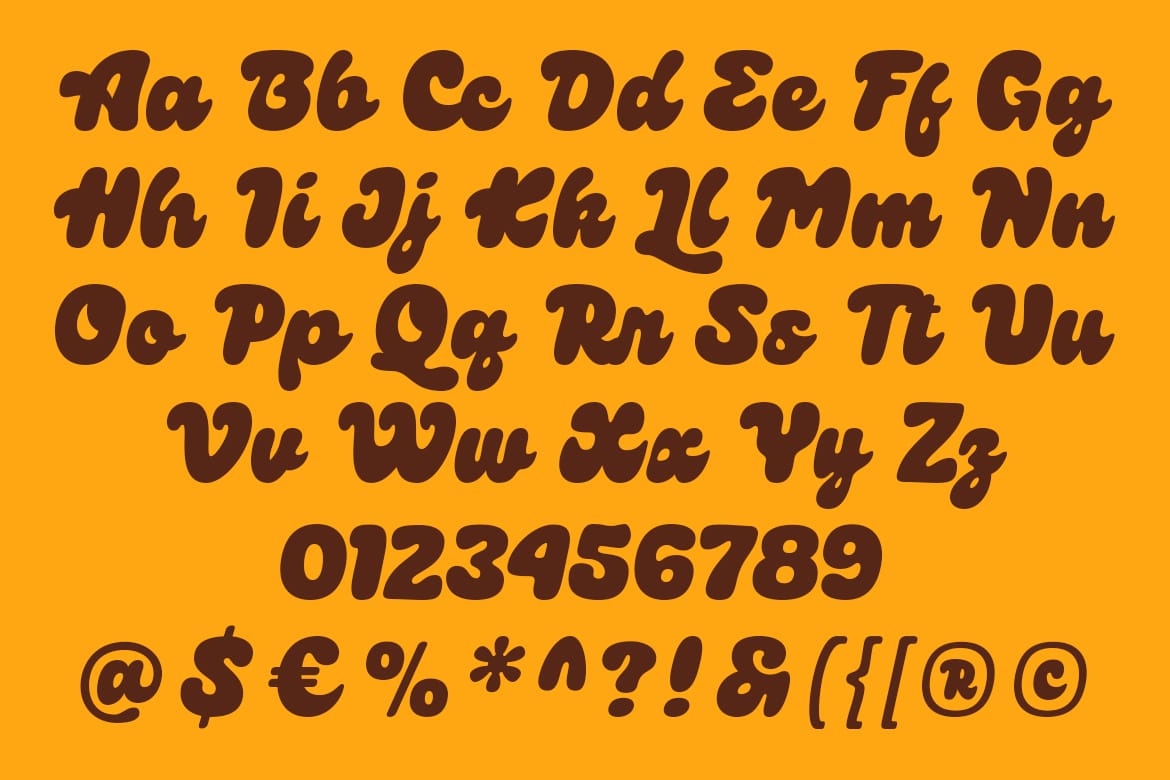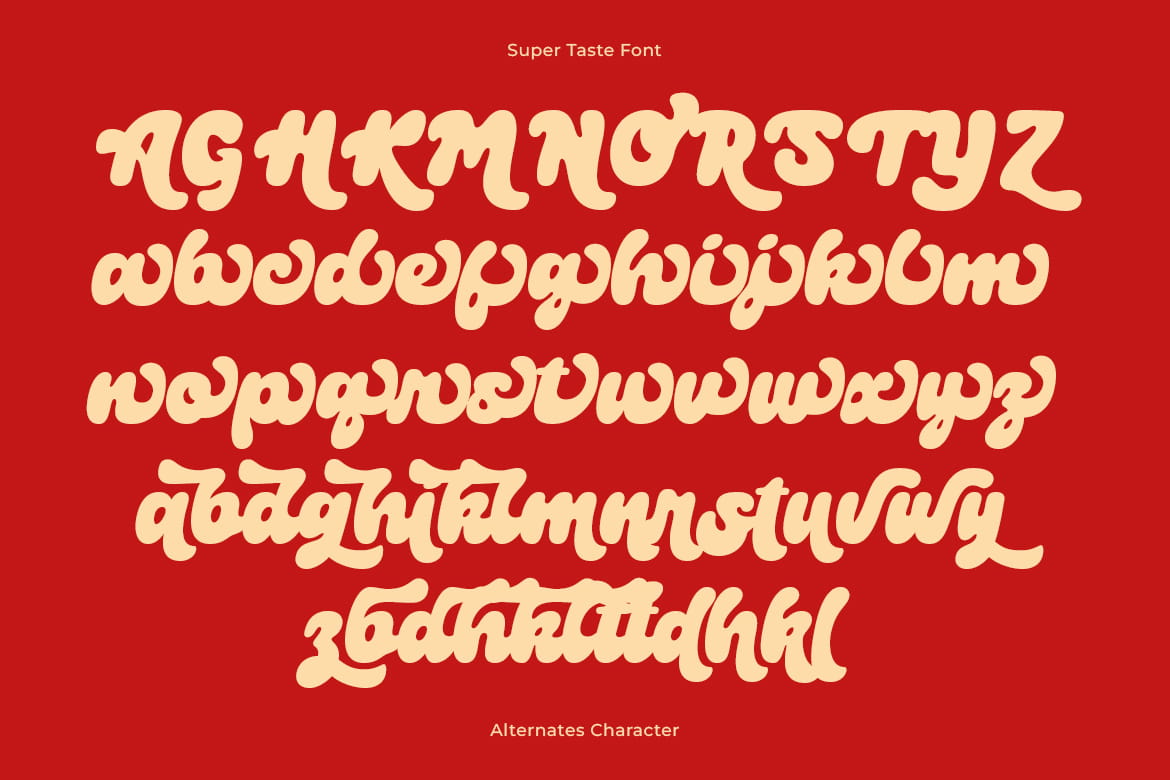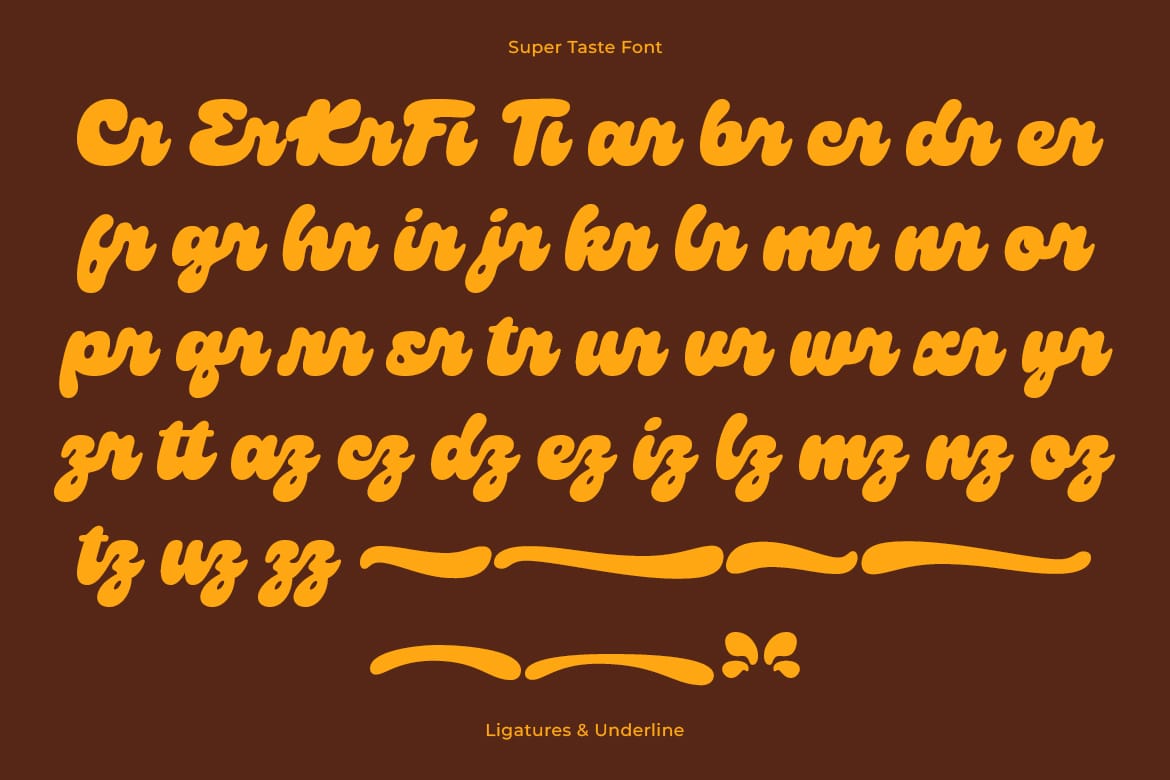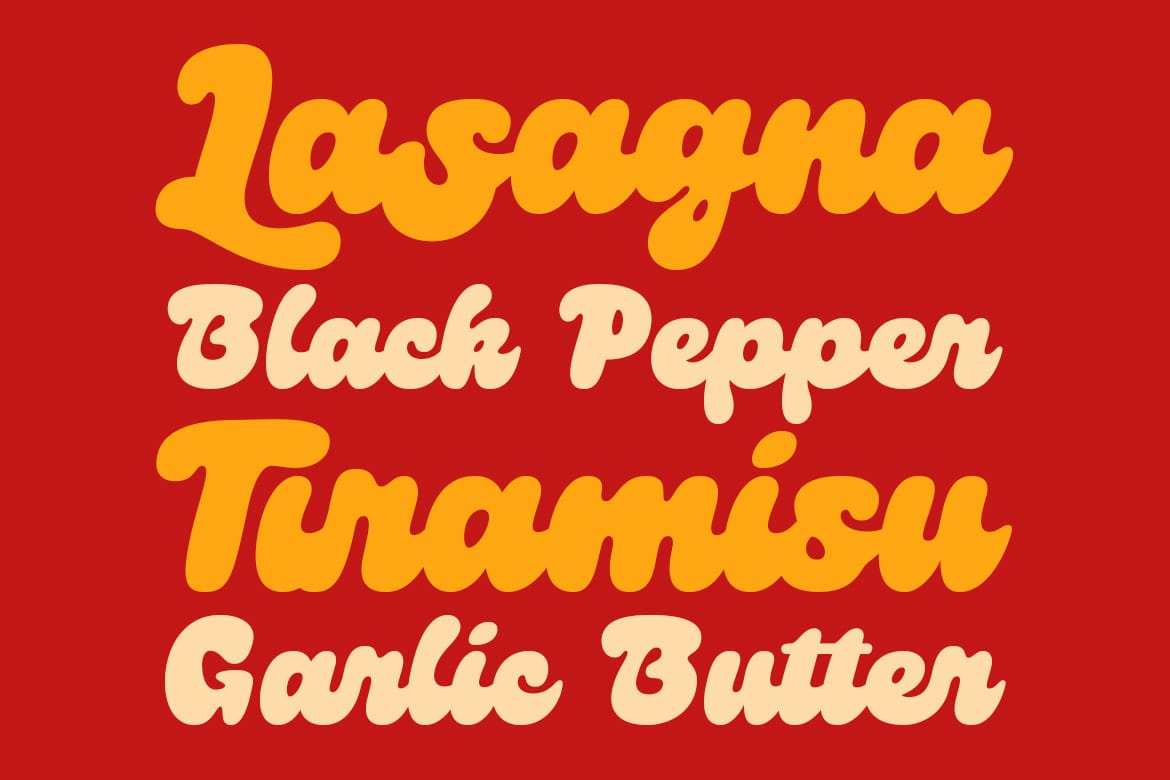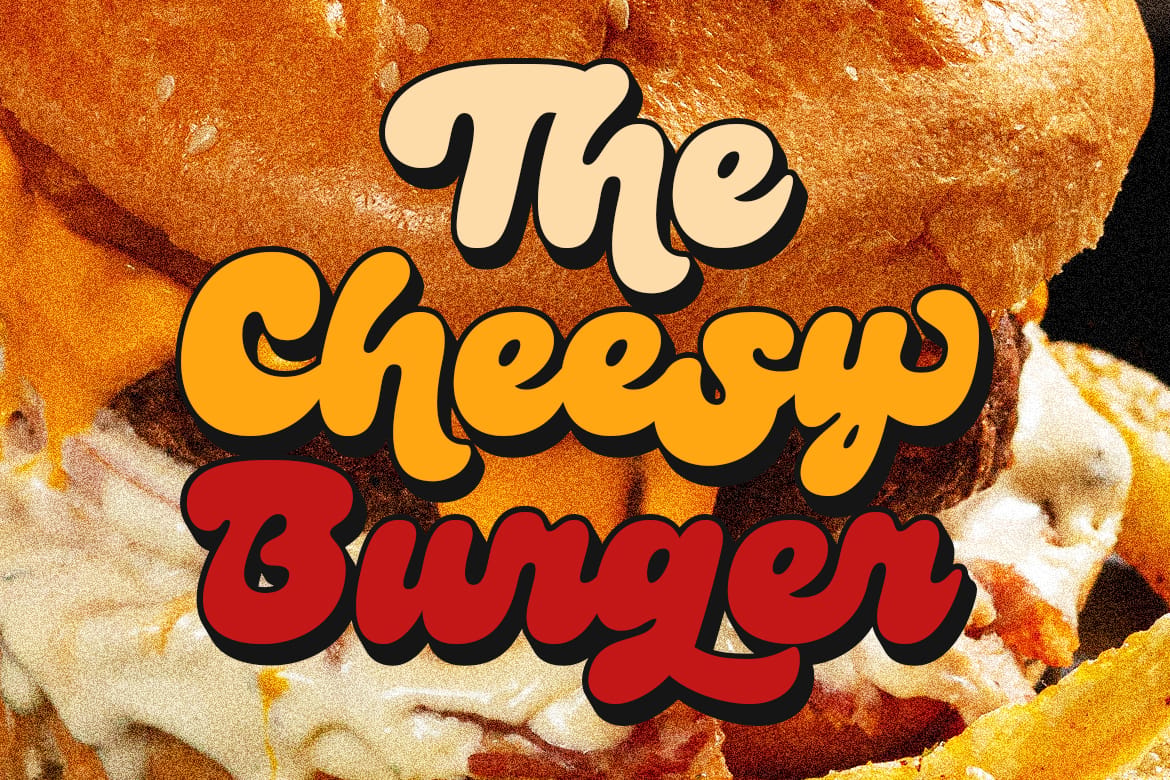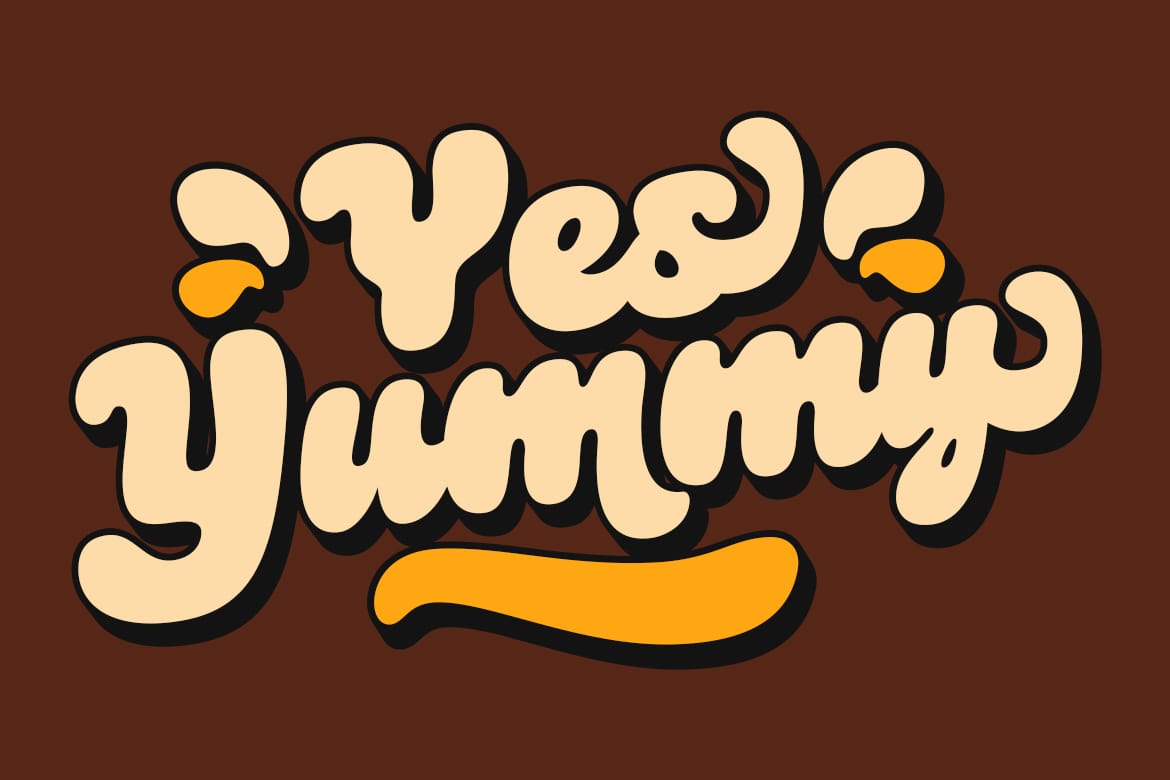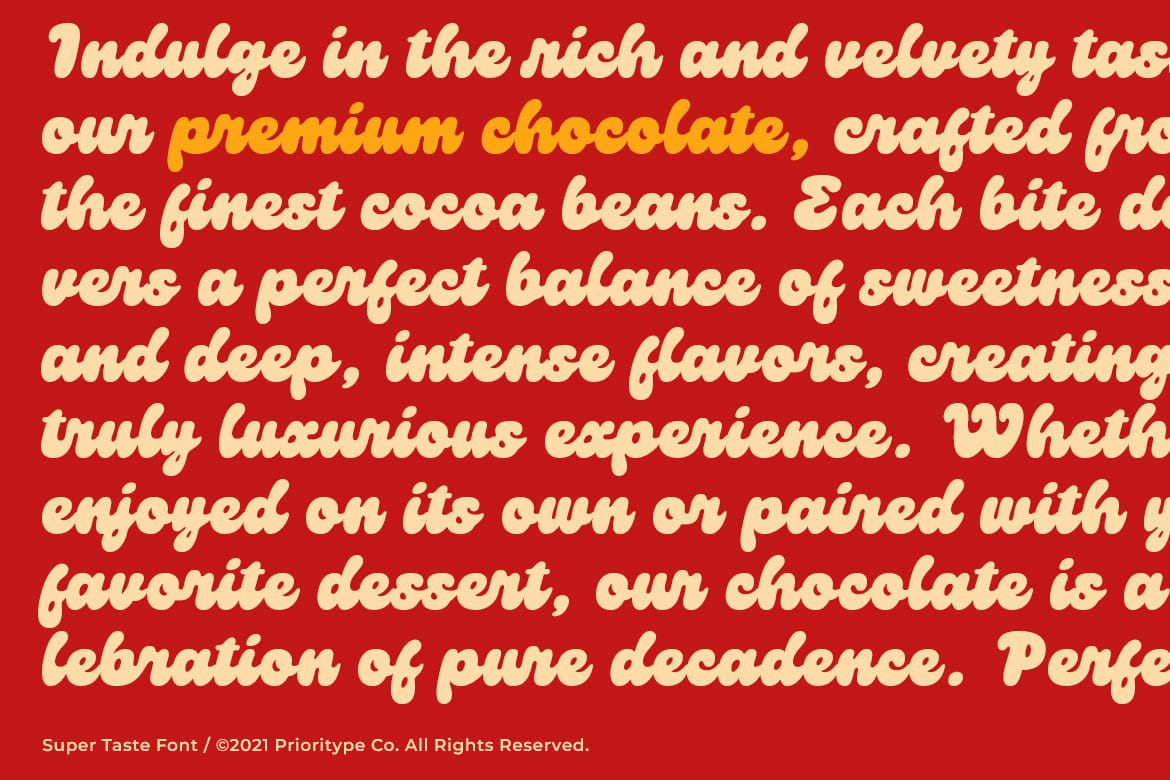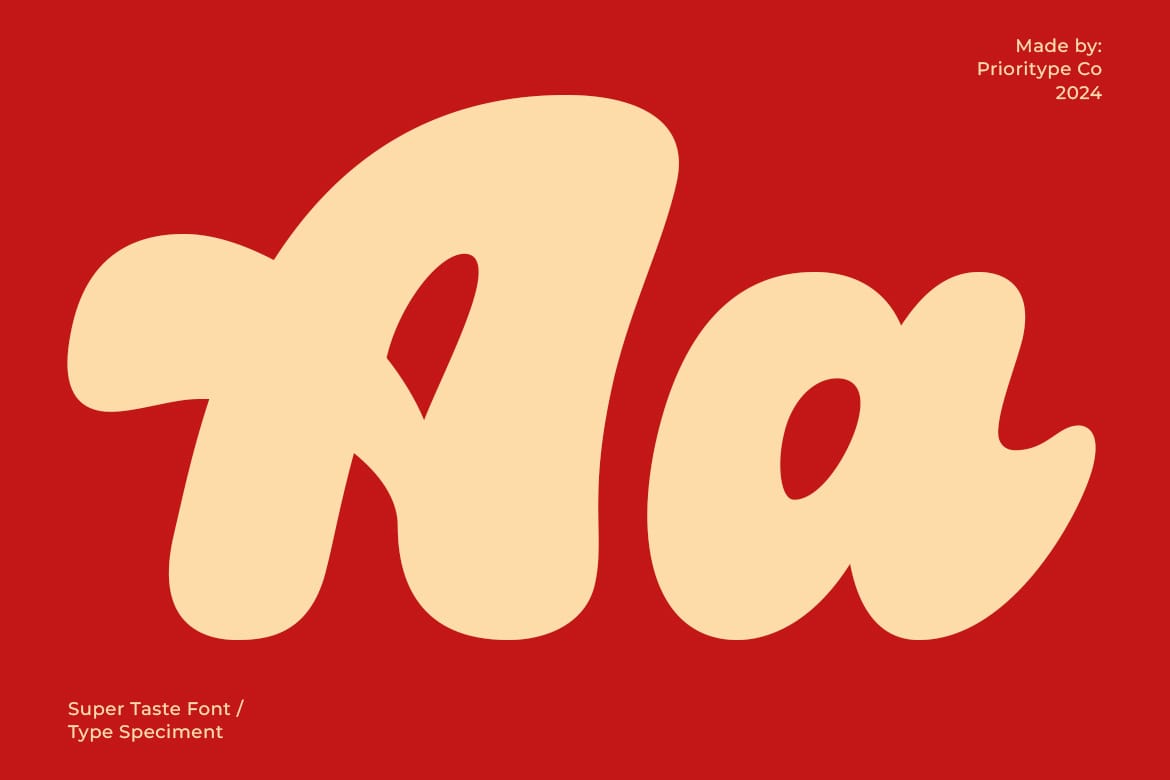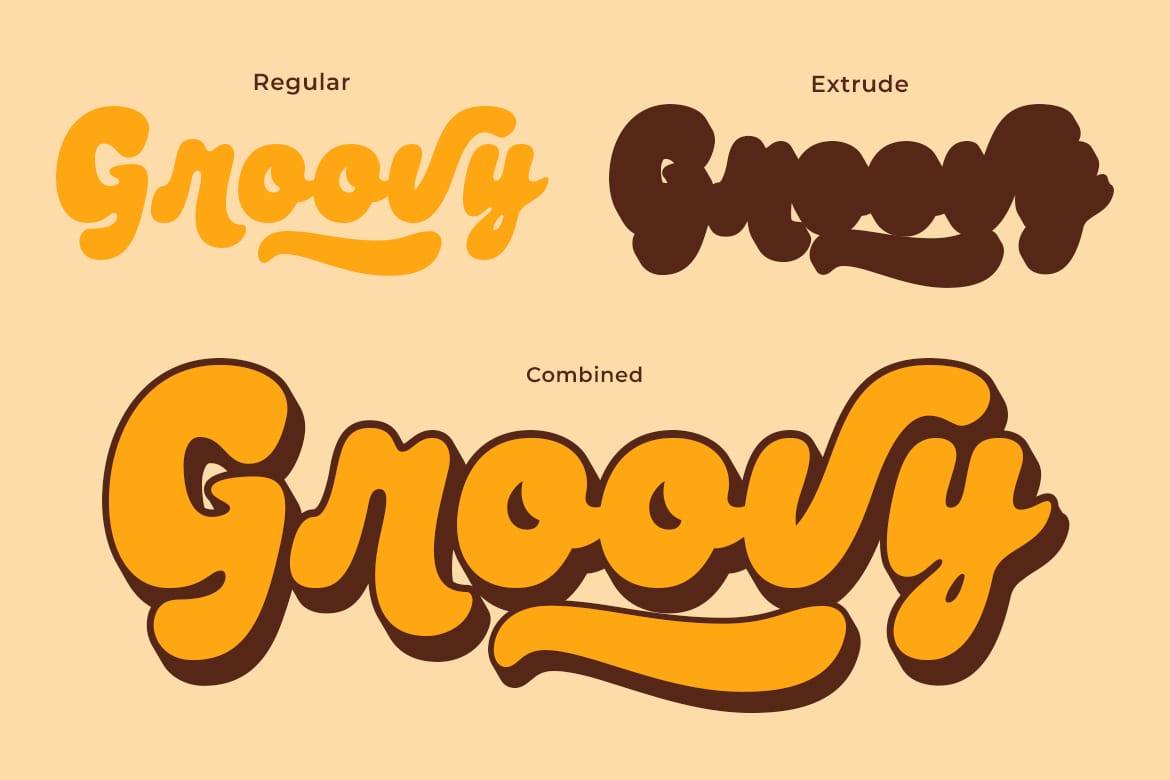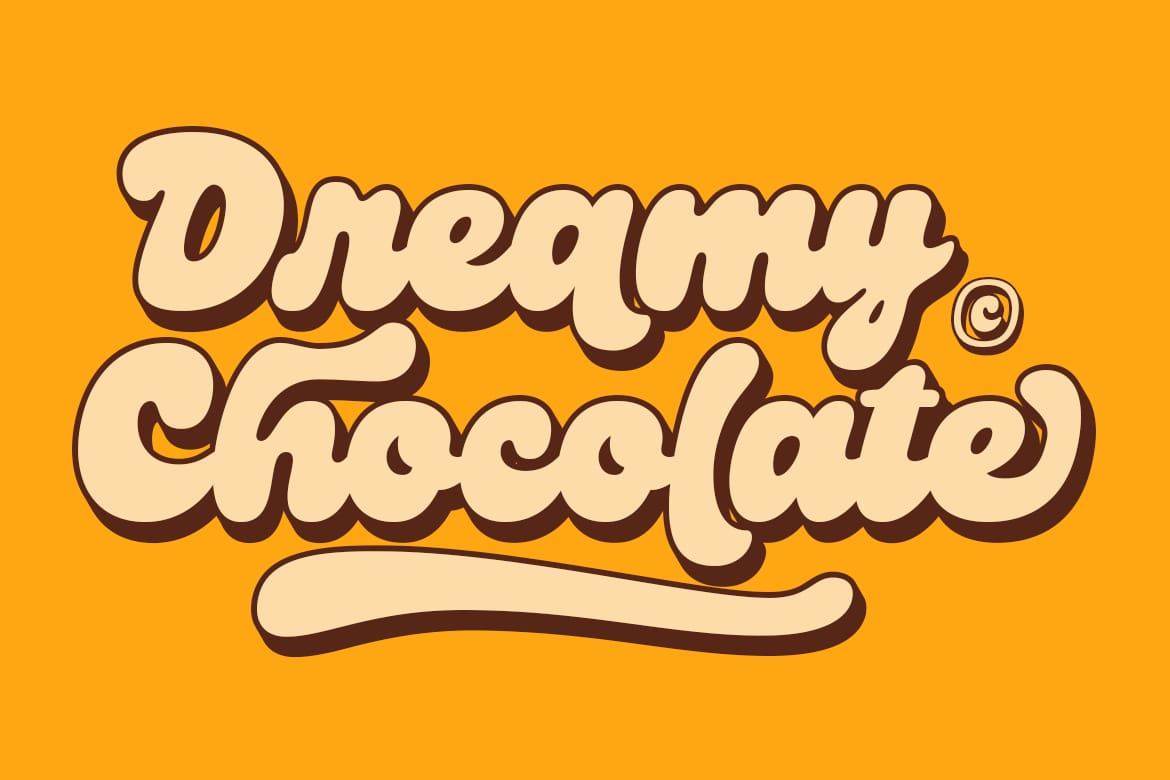
Super Taste - Bold Script Font
Super Taste is a bold script font that blends modern flair with a retro touch. Featuring playful yet structured characters, Super Taste is perfect for a wide range of design needs, from logos and branding to posters and promotional materials. Available in two styles—Regular and Extrude—this font offers versatility in creating eye-catching designs. Ideal for projects aiming to evoke a vintage yet fresh vibe, Super Taste adds a unique flavor to every creative work.
Features: Uppercase, Lowercase, Numeral, Punctuation, Multilingual, Ligatures & Alternates.
- Bold script, Regular and Extrude
- Retro-modern vibe, playful characters
- Ligatures, alternates, multilingual